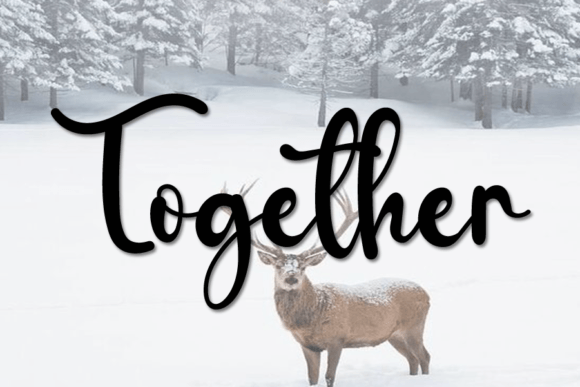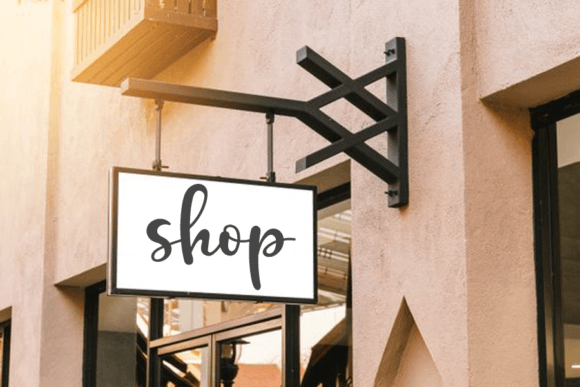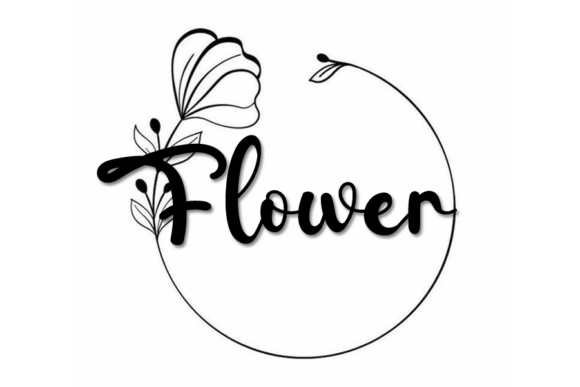
Winter Font
About Winter Font Download
The Winter Font Download is a fun and joyful handwritten script designed to bring warmth and creativity to your projects. With its friendly strokes and casual rhythm, this typeface captures the cheerful spirit of handwritten design. Whether you are working on personal crafts, branding, or digital graphics, Winter delivers both charm and versatility.
A Fun and Joyful Handwritten Typeface
The Winter script font combines playful curves with a modern handwritten feel. As a result, it looks approachable while staying professional. Furthermore, its friendly design adapts to different creative needs, from stationery to social media graphics.
Perfect for Crafts and Invitations
Handwritten fonts always add personality to creative work. The Winter Font is ideal for handmade crafts, wedding invitations, thank you cards, and seasonal greetings. Because of its joyful flow, every piece of stationery feels unique and heartfelt. In addition, it helps your messages leave a lasting impression.
Branding and Logo Design with Winter Font
Typography defines how a brand is perceived. The Winter handwritten font is an excellent choice for boutique logos, product packaging, and promotional campaigns. Its playful yet professional look makes businesses appear approachable. Therefore, it works especially well for lifestyle, creative, and festive industries.
Posters, Quotes, and Editorial Projects
The Winter Font Download also shines in posters, book covers, magazines, and inspirational quotes. Its natural handwritten flow keeps text readable while adding character. Consequently, it is a reliable option for both editorial and promotional layouts.
In today’s creative environment, fonts must adapt seamlessly across platforms. The Winter typeface integrates perfectly into Instagram posts, Pinterest boards, YouTube thumbnails, and blogs. Because of its fun and joyful nature, it makes digital content more engaging.
Why Designers Choose Winter Typeface
Designers value fonts that balance charm with usability. The Winter handwritten script delivers personality while remaining clear and versatile. Moreover, its timeless handwritten look ensures it stays stylish in future projects.
Add Fun and Joy to Your Projects Today
If you want a handwritten script that feels cheerful, versatile, and stylish, the Winter Font Download is the perfect choice. From crafts and invitations to posters, logos, and digital content, it enriches every project with a joyful touch. Finally, download Winter today and let your work shine with handwritten charm.